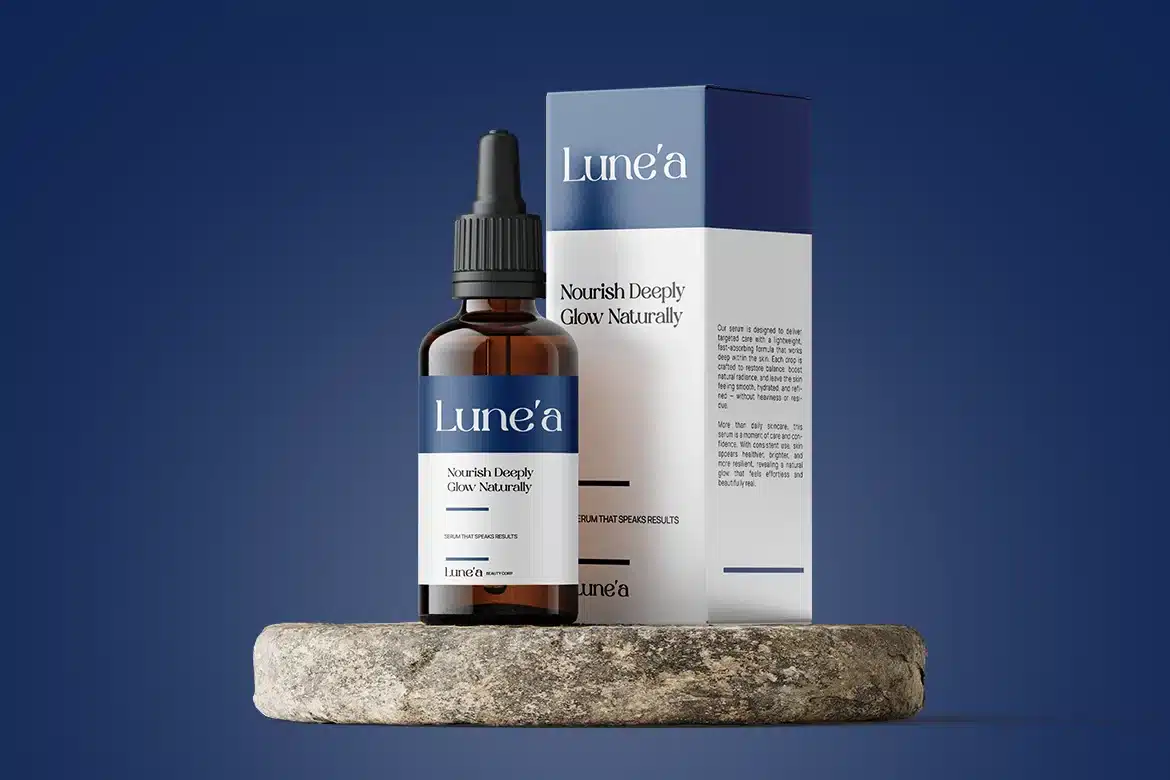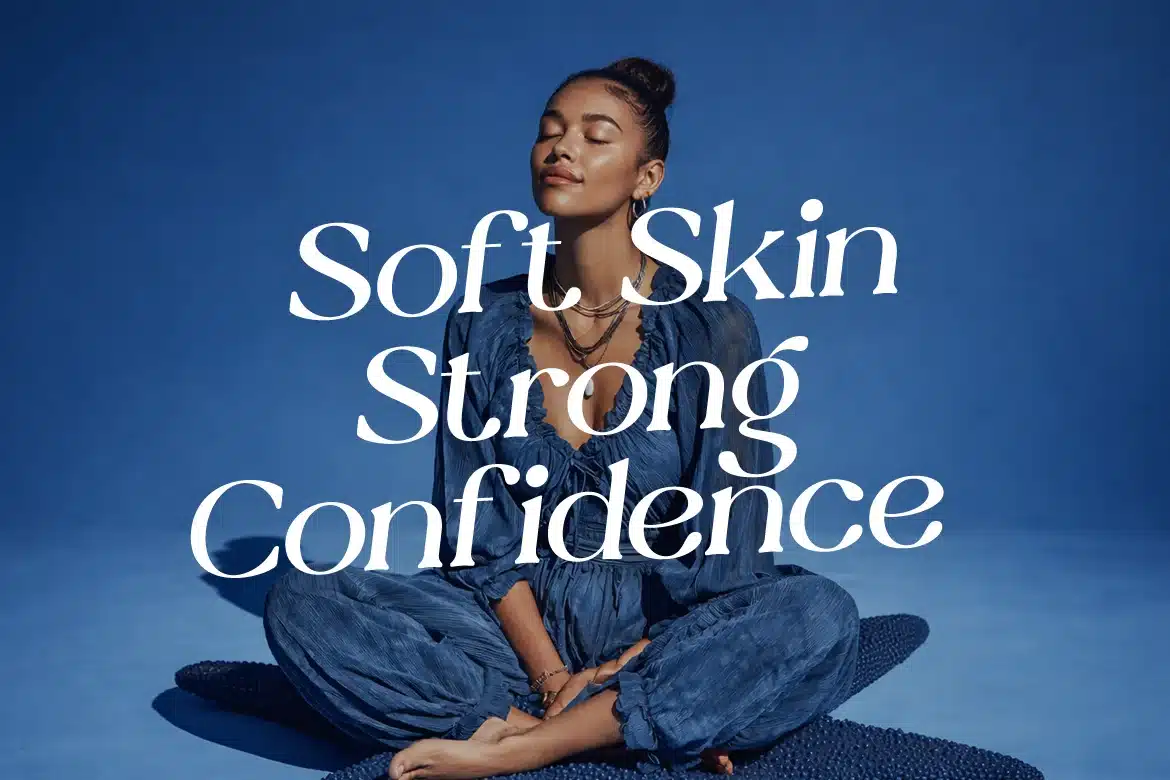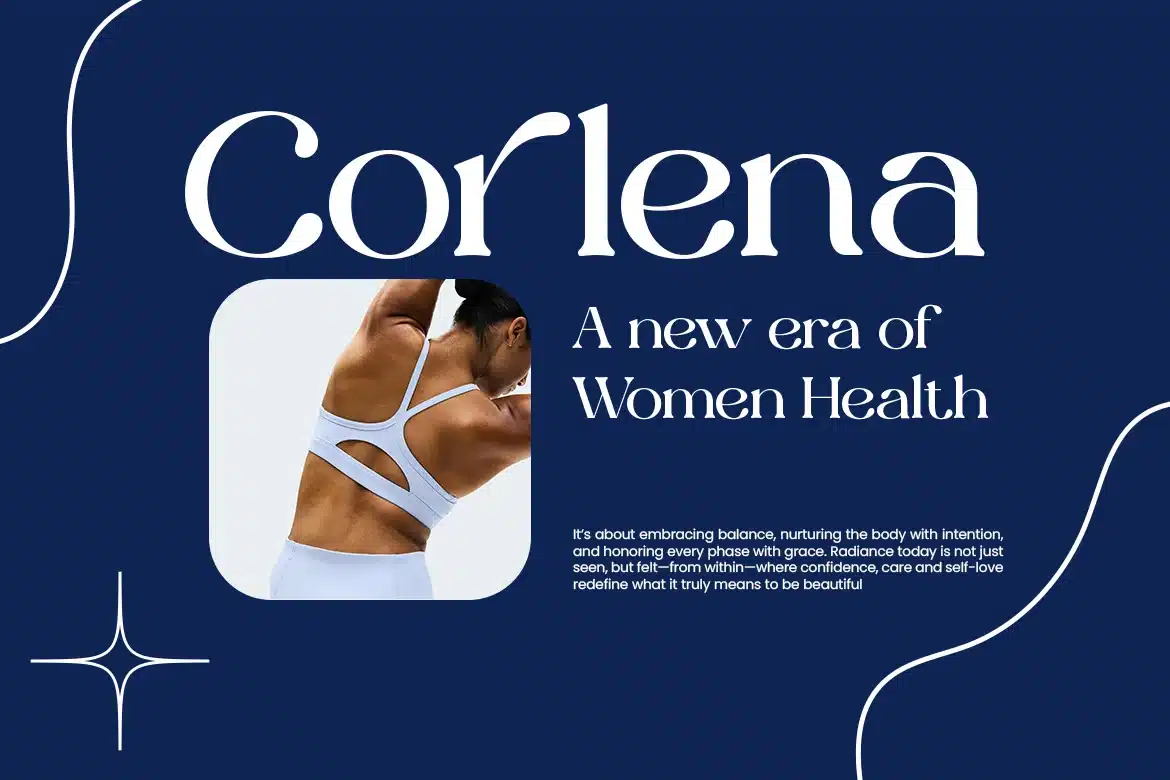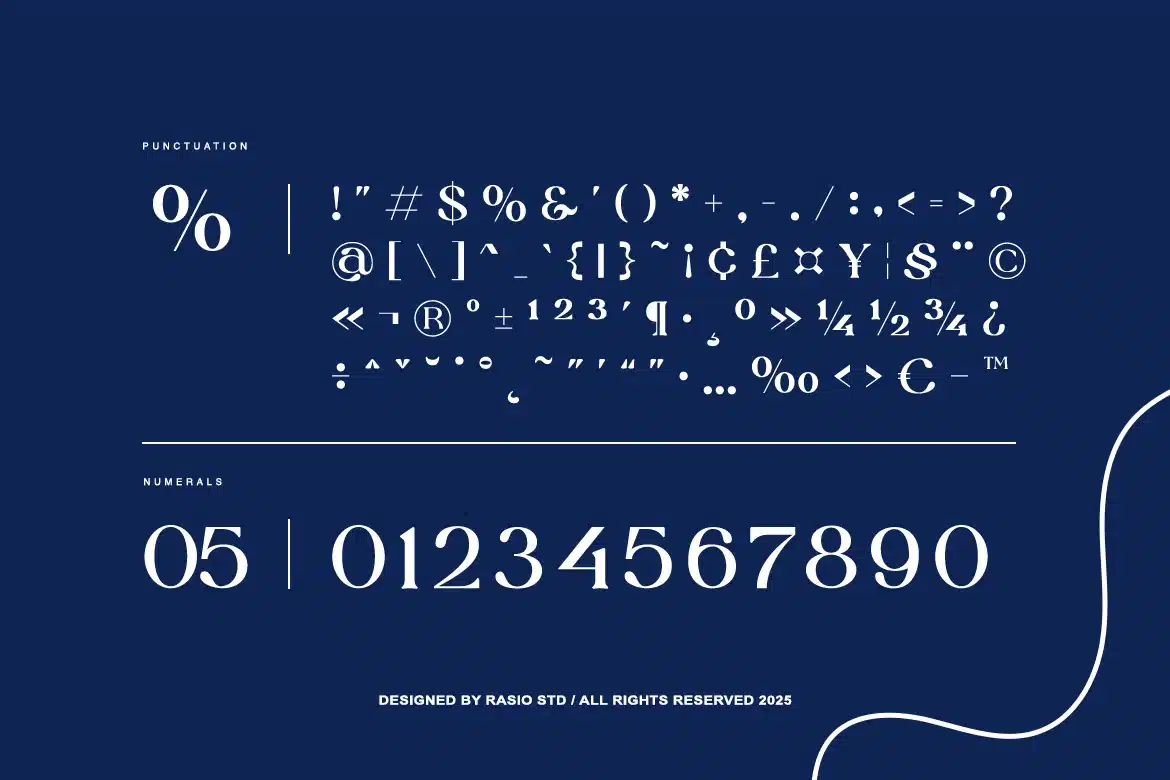
Paverina Modern Display Font
Paverina is a modern elegant serif font featuring refined curves, high-contrast strokes, and distinctive decorative alternates. The typeface includes uppercase, lowercase, numerals, punctuation, stylistic alternates, and multilingual support, allowing versatile typographic expression. Its graceful letterforms combine classic serif structure with contemporary styling, making it visually sophisticated and expressive. It is optimized for display use in both digital and print. Not recommended for long paragraphs due to its ornamental details.
Relevance and Use Cases is perfect for projects that emphasize elegance, beauty, and premium aesthetics. It works perfectly for fashion branding, cosmetic packaging, editorial layouts, luxury product design, and high-end marketing materials. Its refined character makes it suitable for social media campaigns, magazine covers, wedding visuals, and branding systems that aim to communicate sophistication and style.
Main Features:
- Ligatures Support